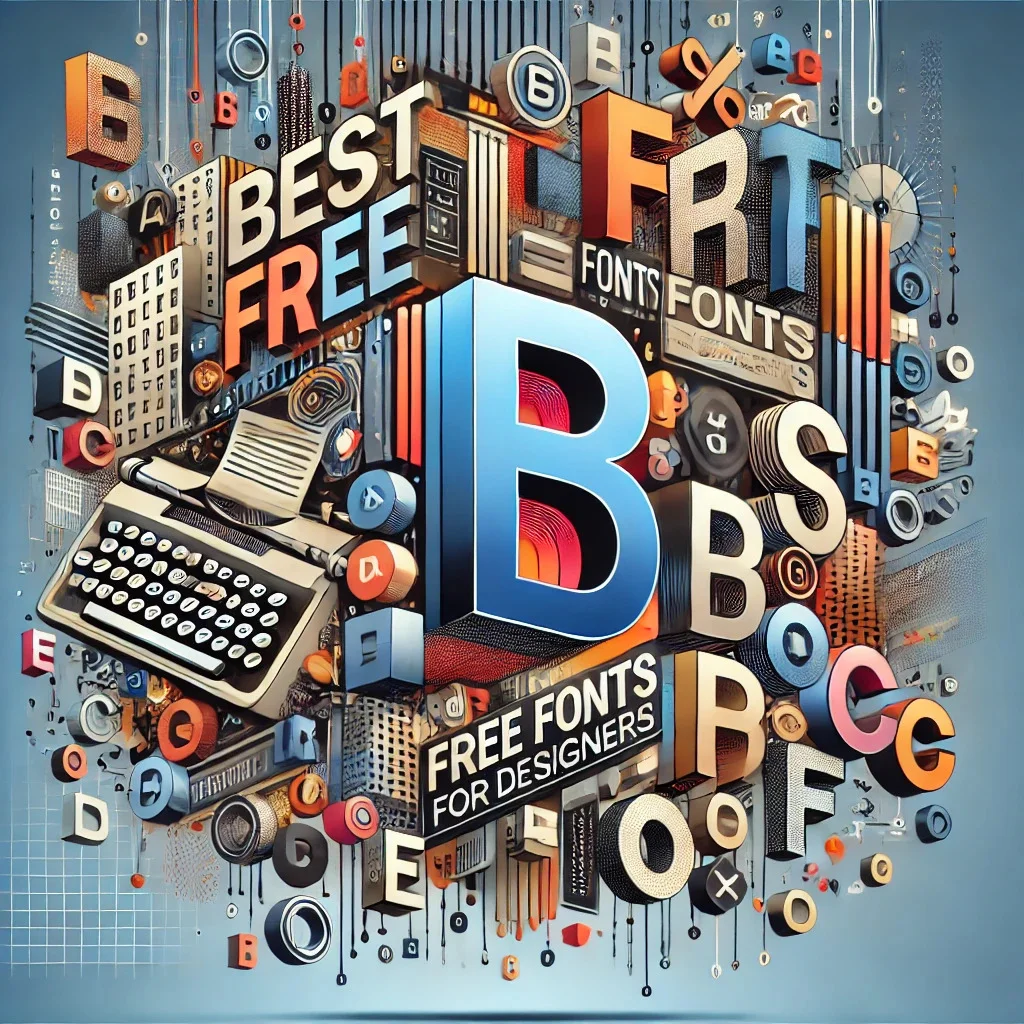
Best Free Fonts for Designers
Choosing the right font is crucial for any design project, whether you're working on a website, logo, or promotional materials. Fonts set the tone of your message and can have a significant impact on how your audience perceives your work. Thankfully, there are numerous high-quality, free fonts available that can elevate your design without breaking the bank. In this blog post, we’ll explore some of the best free fonts every designer should have in their toolkit.
1. Roboto
Originally developed by Google, Roboto is a versatile sans-serif font that’s perfect for web and mobile design. It has a clean and modern look, making it highly readable across different devices and resolutions. Its neutral design allows it to work well in both body text and headlines.
Best for: Websites, mobile apps, user interfaces
2. Open Sans
Another excellent choice for digital platforms, Open Sans is widely used thanks to its readability and neutrality. It offers a friendly and approachable appearance, making it great for both formal and casual designs.
Best for: Web design, presentations, reports
3. Lora
If you need a serif font that combines elegance with readability, Lora is a great option. It’s designed to be highly legible while maintaining an artistic flair, making it ideal for print and web content that requires a sophisticated touch.
Best for: Magazines, blogs, long-form articles
4. Montserrat
Inspired by old signage in Buenos Aires, Montserrat is a bold, geometric font that adds personality to any design. Its distinctive style makes it a popular choice for headlines, logos, and banners. It’s available in a wide range of weights, offering flexibility for various design needs.
Best for: Branding, posters, logos
5. Playfair Display
Playfair Display brings a classic, elegant look to any project. It’s perfect for editorial design, giving your titles and headers a timeless feel. This serif font pairs beautifully with sans-serif fonts for a balanced and modern aesthetic.
Best for: Fashion, lifestyle, luxury branding
6. Raleway
Raleway is a sleek and stylish sans-serif font that works beautifully in large sizes. It’s great for creating bold statements in titles or branding materials. The clean lines and modern look make it a favorite for designers who want a minimalistic yet impactful design.
Best for: Headings, brochures, websites
7. Poppins
With its geometric shapes and precise design, Poppins is ideal for modern designs. Its wide letterforms give it a unique appearance, making it an eye-catching option for creative projects. It also comes in various weights, offering plenty of flexibility.
Best for: Digital products, advertising, packaging
8. Bebas Neue
Bebas Neue is a strong, all-caps font that is frequently used in advertising, headlines, and posters. It commands attention with its bold and clean lines, making it perfect for designs that need to make a statement.
Best for: Posters, ads, branding
9. Nunito
Nunito is a balanced sans-serif font that’s designed for readability, especially at smaller sizes. It has a friendly, rounded look, making it approachable and ideal for projects where you want to create a welcoming atmosphere.
Best for: Apps, websites, user interfaces
10. Fira Sans
Originally developed for Mozilla Firefox, Fira Sans is a highly legible, versatile font. Its design is optimized for web use, but it works equally well in print. The slightly condensed letterforms make it ideal for space-efficient designs.
Best for: Web, print, infographics